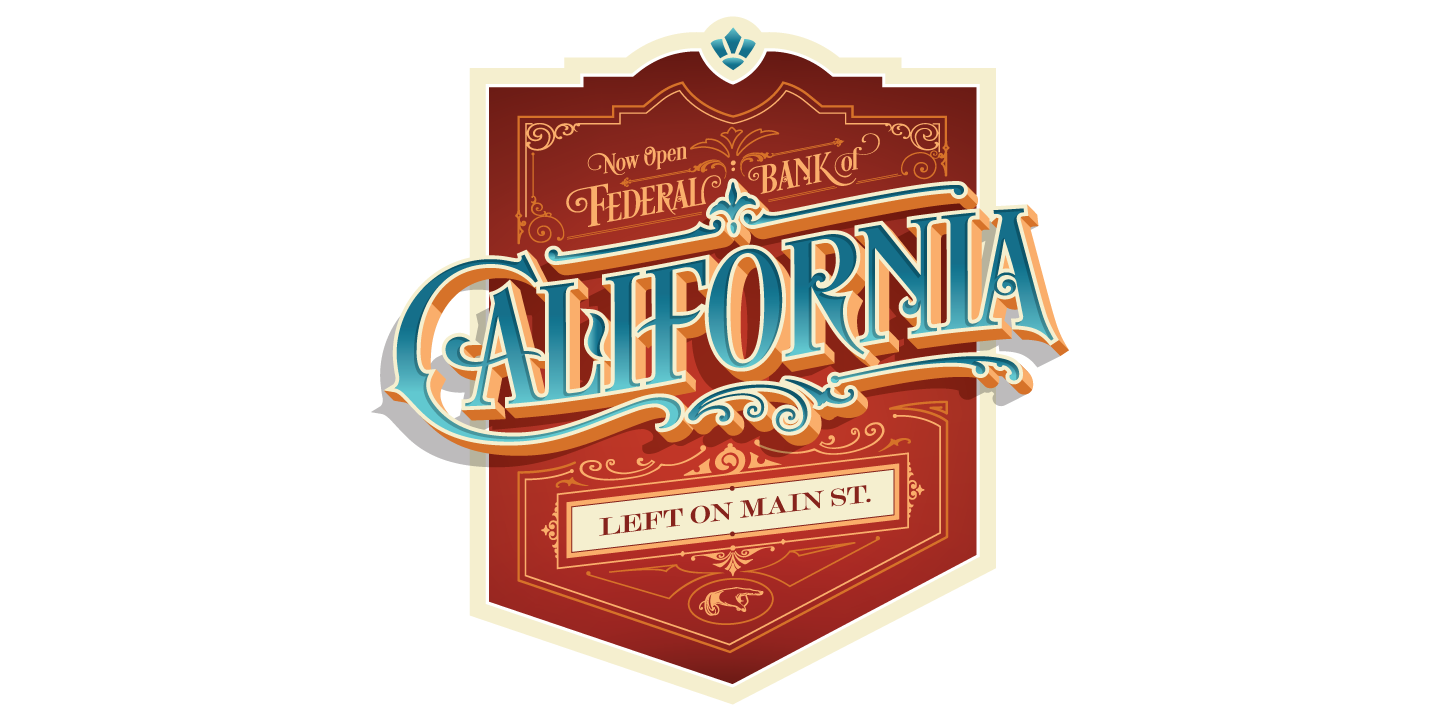
Desire Font Free Download is an exquisite and highly decorative typeface, renowned for its intricate details, elegant swashes, and luxurious appeal. It's perfect for designs that demand a sense of opulence, romantic sophistication, or bespoke craftsmanship. Imagine it gracing high-end jewelry branding, prestigious event invitations, sophisticated perfume packaging, or elegant wedding stationery. Its ornate and often flowing character also makes it an excellent choice for luxury magazine editorials, unique art prints, and captivating website headers in the fashion, beauty, or artisanal industries. Whether your goal is to impart a sense of timeless grandeur, delicate artistry, or exclusive charm, Desire Font offers the stylistic richness to elevate your creative vision.
What makes Desire Font truly exciting is its unparalleled level of detail and customization. It often features a vast array of ligatures, stylistic alternates, and ornamental flourishes that allow designers to create truly unique and intricate typographic compositions. This isn't just another decorative font; it's a meticulously crafted typeface that brings a unique combination of artistic expression and refined beauty to any text. Designers appreciate its strong visual impact and how it can instantly infuse a design with a sense of luxury and a polished, high-fashion feel, making it a memorable choice for projects that aim to impress and inspire discerning audiences with unparalleled elegance.
The Desire Font family is typically extensive, focusing on maximizing its decorative potential. You can generally expect a Regular weight that forms the foundation of its aesthetic, embodying its characteristic elegance and intricate design. Crucially, many versions of Desire come with an expansive set of OpenType features, including numerous stylistic sets, swashes, ligatures, and contextual alternates. This rich array allows for deep customization, helping to create truly unique and handcrafted-looking text. This comprehensive approach ensures that Desire Font Free Download consistently delivers its charming, personal touch, making it ideal for both prominent display headlines and more nuanced design elements where a refined, artisanal style is desired.